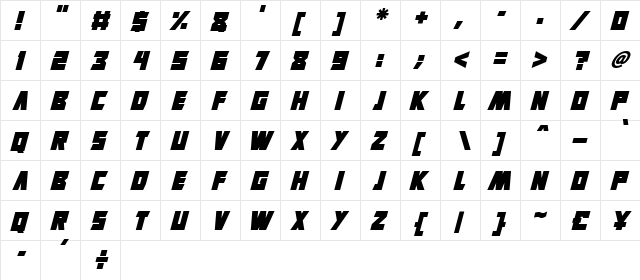
Virtual Realm Italic
Design Context for Virtual Realm Typeface
Virtual Realm offers clean, dependable letterforms without strong stylistic allegiance, making it a practical choice for designers who need flexibility. Its italic angle brings a sense of urgency and motion to the letterforms.
Pro Tip: Use Virtual Realm for emphasis, pull quotes, and subheadings where its slanted energy can add rhythm to the layout.